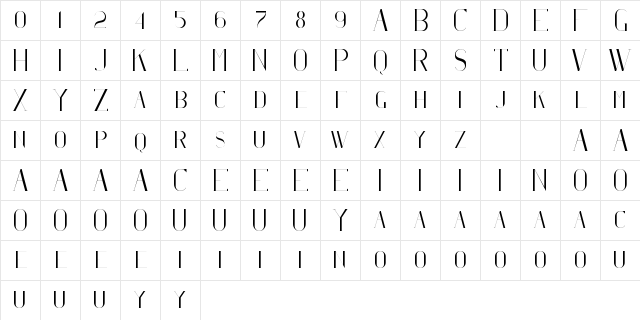
CC Afterglow Regular
Design Context for CC Afterglow Typeface
CC Afterglow is a composed and adaptable typeface that performs quietly and consistently across a wide range of design contexts.